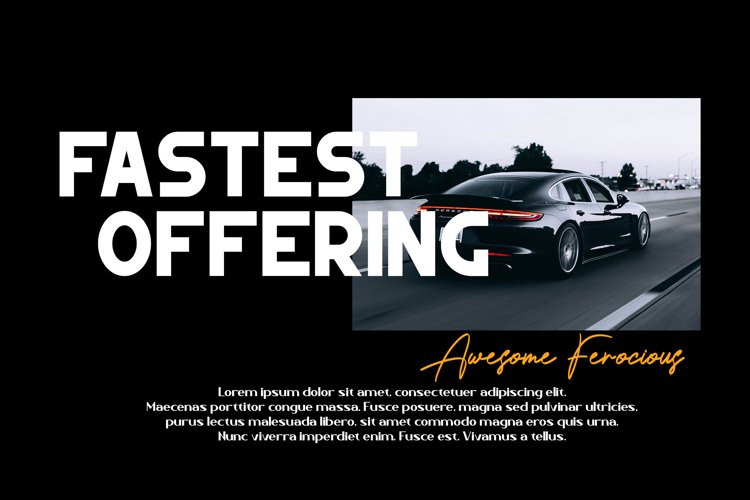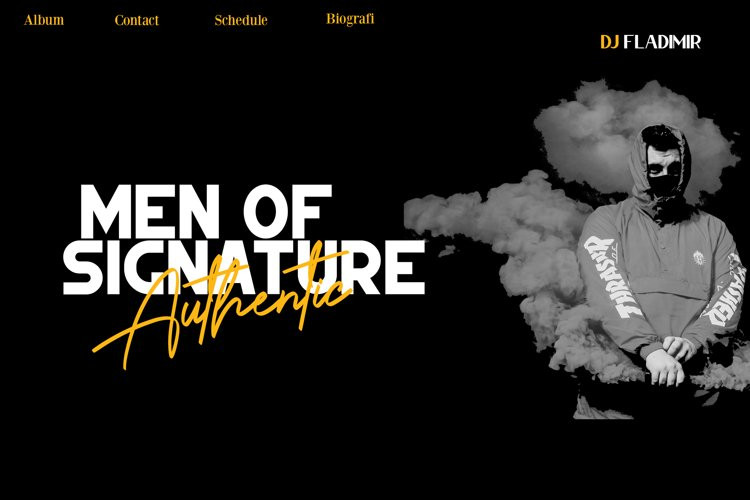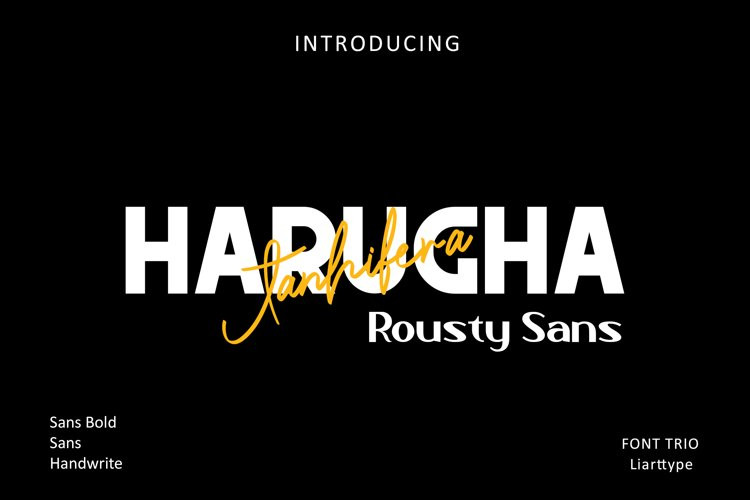
Harugha Jhanifera Font
The Harugha Jhanifera Rousty font is a trio of sans, slab bold and handwritte fonts
who can help your work in making
fashion magazines, logos, photography, landing pages, flyers,
multilingual support